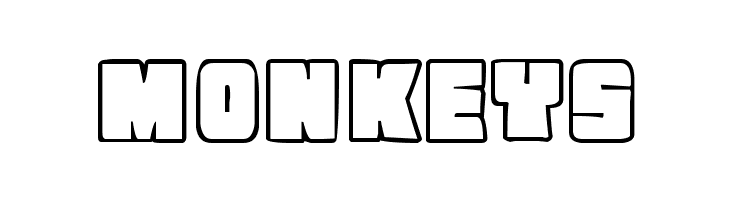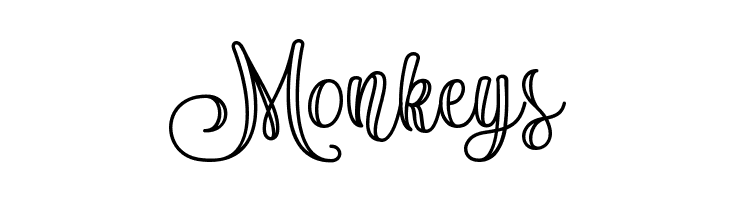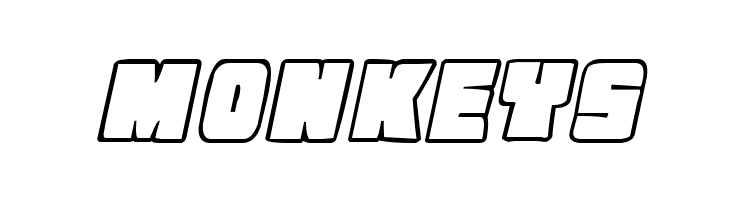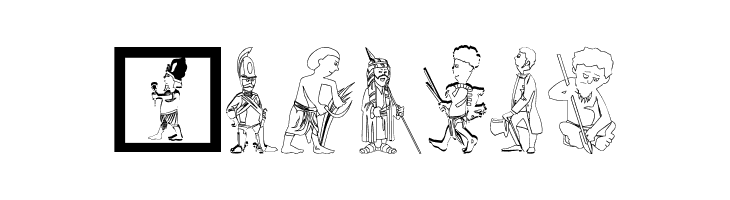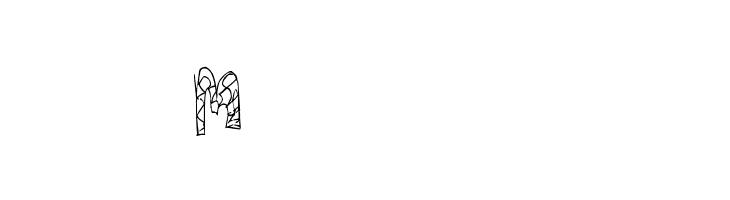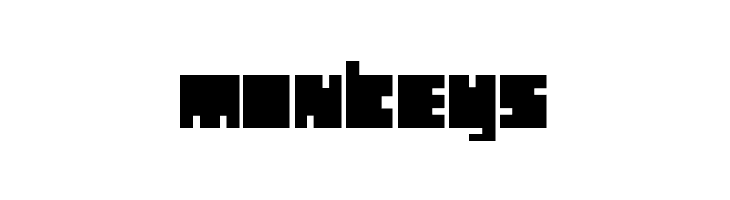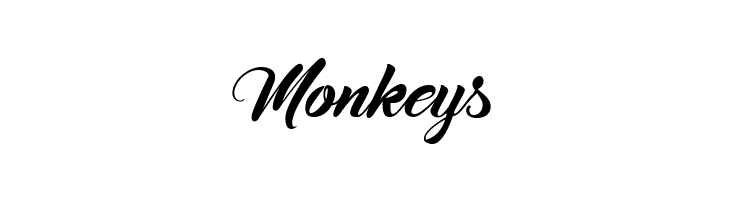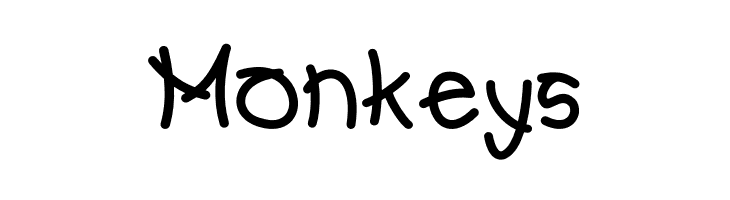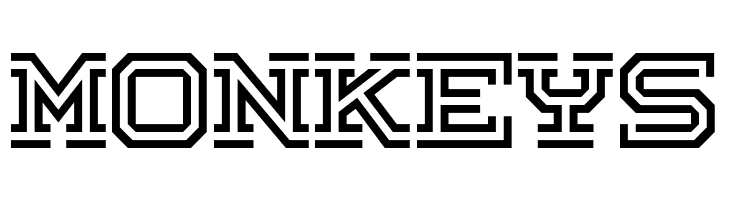
An elegant and ornate script font with flowing cursive style.
A playful handwritten font with a casual and friendly style.
Hand-drawn, character-based decorative font inspired by historic figures.
An elegant and decorative script font with intricate loops and flourishes.
A bold, geometric font with a double-line structure and modern, industrial feel.
A bold, outlined, and playful font perfect for festive themes.
A bold, playful, and three-dimensional font with a comic-style flair.
A bold, geometric font with a blocky, pixel-art style.
A playful, handwritten cursive font with smooth, connected strokes.